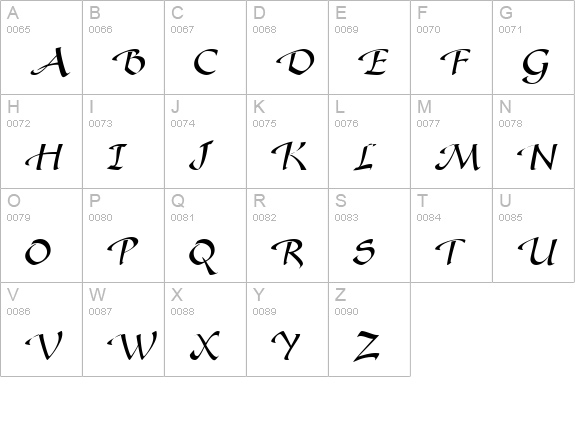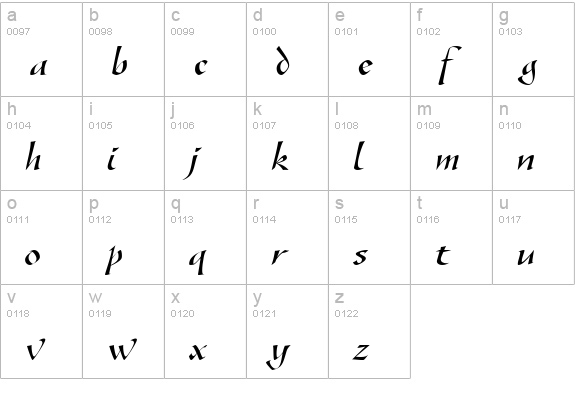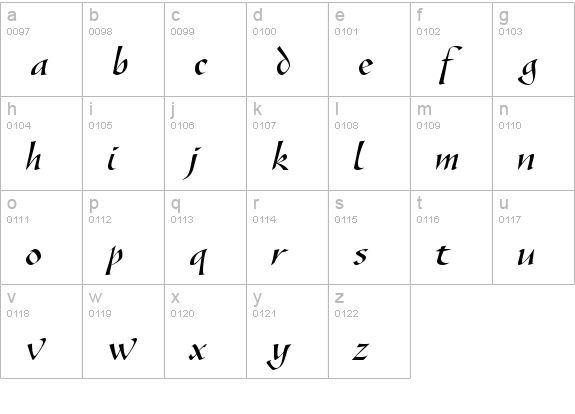
Sonyanna Script SSi Font Details
Sonyanna Script SSi font is a stylish and elegant script typeface that will add a touch of sophistication to any design project. With its flowing and graceful letterforms, this font exudes a sense of beauty and refinement. Whether you're creating wedding invitations, branding materials, or social media graphics, Sonyanna Script SSi font will bring a touch of class to your designs. One of the best things about Sonyanna Script SSi font is that it is free to download. That's right, you can get your hands on this stunning font at no cost. It is available for download at FontsMarket.com, a reputable online platform for high-quality fonts. FontsMarket.com offers a wide range of free fonts, and Sonyanna Script SSi font is just one of the many options you can choose from. By downloading Sonyanna Script SSi font, you will have access to a versatile and versatile typeface that can be used for various design projects. The font features a wide range of characters, including uppercase and lowercase letters, numbers, and punctuation marks, making it suitable for both headings and body text. With its smooth curves and beautiful calligraphic strokes, Sonyanna Script SSi font is perfect for creating elegant and eye-catching designs. Its timeless appeal and versatility make it ideal for a variety of applications, from branding and packaging to logos and invitations. So why wait? Take advantage of the opportunity to download Sonyanna Script SSi font for free at FontsMarket.com and elevate your design projects with this exquisite typeface. Enhance your creativity and bring a touch of elegance to your work with this stunning font.